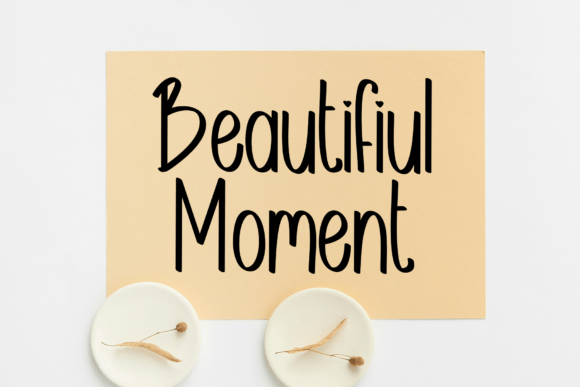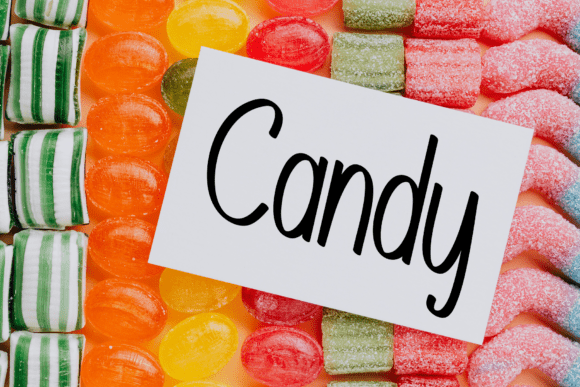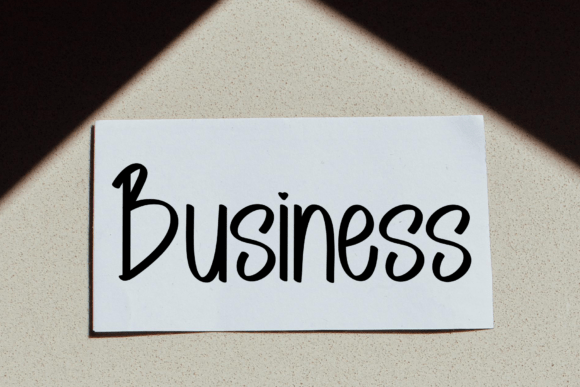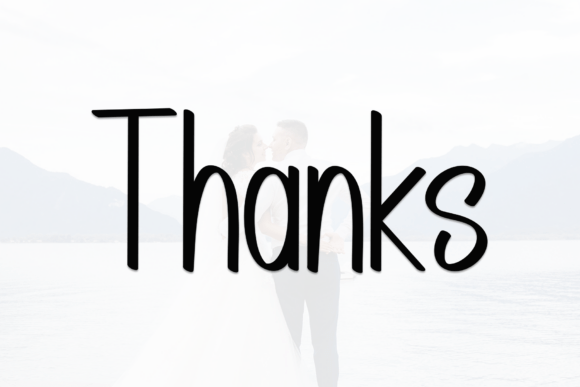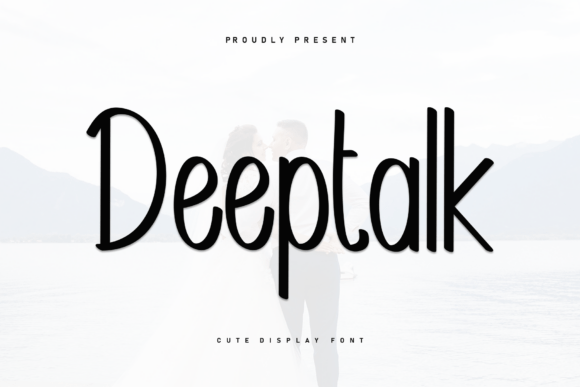
Introducing Deeptalk Font: The Perfect Blend of Relaxed and Luxurious
In the world of typography, fonts play a crucial role in defining the aesthetic and tone of a design. For designers and crafters looking for a unique and versatile font, Deeptalk Font is an excellent choice. This handwritten font, designed to mimic the look of a marker-drawn script, offers a relaxed and sporty feel that’s perfect for a wide range of applications.
What is Deeptalk Font?
Deeptalk Font is a carefully crafted handwritten font that boasts a distinctive, marker-drawn appearance. Its relaxed and casual vibe makes it an ideal choice for designers seeking to add a touch of elegance and sophistication to their work without sacrificing a laid-back feel. Whether you’re working on branding, logos, wedding supplies, greeting cards, fashion projects, lookbooks, or marketing promotions, Deeptalk Font is sure to impress.
Key Features of Deeptalk Font
- Handwritten with a Marker Feel: Deeptalk Font is designed to look like it was drawn with a marker, giving it a unique and personal touch.
- Relaxed and Sporty: The font exudes a casual, sporty vibe that’s perfect for designs that need to feel approachable and friendly.
- Luxurious and Elegant: Despite its casual feel, Deeptalk Font also possesses a level of sophistication and elegance, making it suitable for high-end branding and marketing materials.
- Versatile: From wedding supplies and greeting cards to fashion projects and marketing promotions, Deeptalk Font can be used across a wide range of applications.
Uses of Deeptalk Font
Deeptalk Font’s versatility is one of its standout features. Here are some of the many ways you can use this font in your designs:
- Branding: Create a memorable brand identity with Deeptalk Font. Its unique blend of casual and elegant makes it perfect for startups and established brands looking to refresh their image.
- Logos: Design a logo that stands out with Deeptalk Font. Its marker-drawn look can add a creative and artistic touch to your logo.
- Wedding Supplies: Add a personal touch to wedding invitations, programs, and other supplies with Deeptalk Font.
- Greeting Cards: Whether it’s a birthday, anniversary, or holiday card, Deeptalk Font can help you create a card that’s both stylish and heartfelt.
- Fashion and Lookbooks: Deeptalk Font is perfect for fashion designs, lookbooks, and marketing materials that require a stylish and contemporary feel.
- Marketing Promotions: Use Deeptalk Font in your marketing materials to add a touch of elegance and sophistication while maintaining a casual and approachable tone.
Why Choose Deeptalk Font?
With so many fonts available, why choose Deeptalk Font? Here are a few compelling reasons:
- Unique Style: Deeptalk Font offers a distinctive style that’s hard to find in other fonts. Its marker-drawn appearance sets it apart from more traditional fonts.
- Versatility: This font can be used in a wide range of applications, making it a valuable addition to any designer’s toolkit.
- Ease of Use: Deeptalk Font is easy to use and can be incorporated into your designs quickly and seamlessly.
Deeptalk Font is a versatile and stylish handwritten font that offers a unique blend of relaxed and luxurious. Its marker-drawn appearance and sporty feel make it perfect for a wide range of design applications, from branding and logos to wedding supplies and marketing promotions. Whether you’re a professional designer or a crafter, Deeptalk Font is sure to become a favorite in your toolkit.